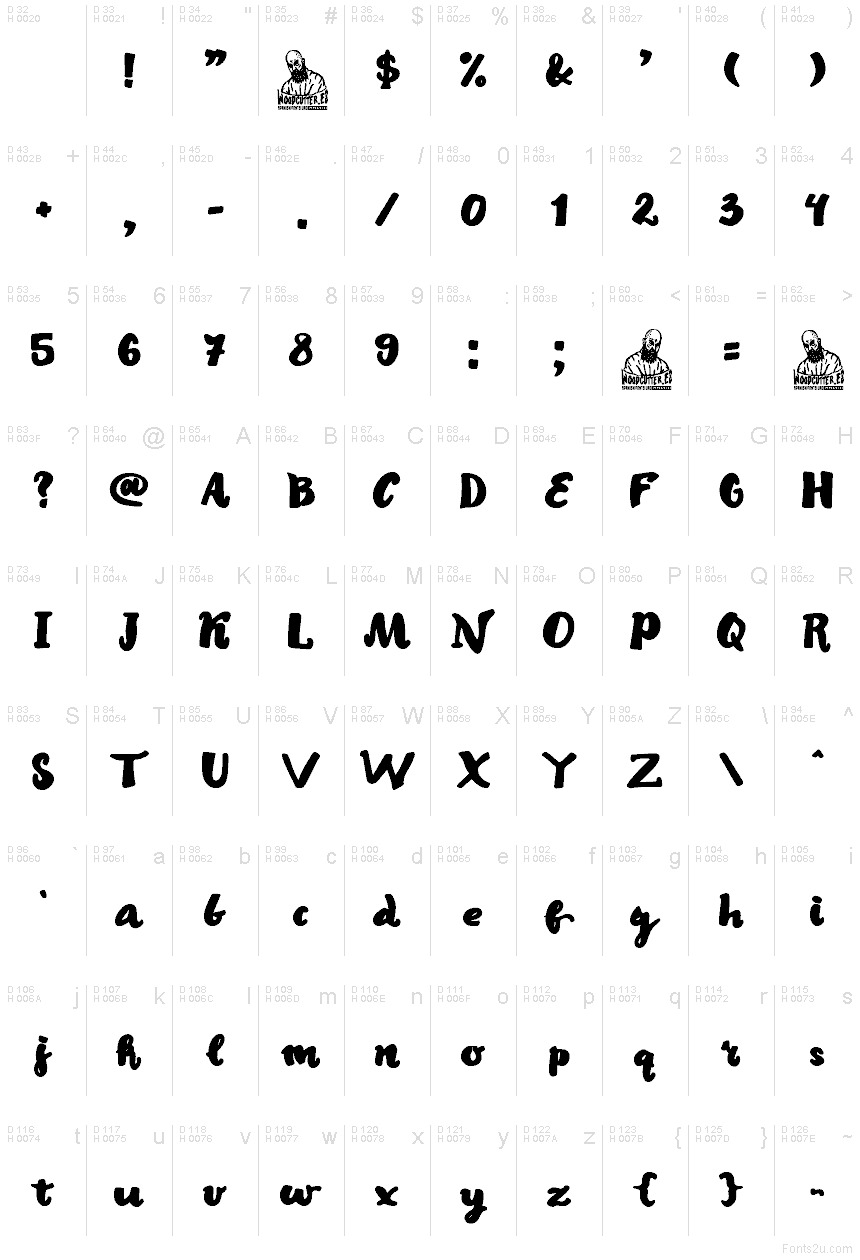
Cool Brotherhood
Cool Brotherhood font by Woodcutter is a bold brush typeface that radiates expressive style and artistic flair. Its flowing curves and vintage feel capture a strong retro influence, making it both unique and versatile.
Free for use, this font excels in band posters, logo designs, headlines, packaging materials, coffee shop branding, menus, t-shirts design projects related to music events or art exhibitions.